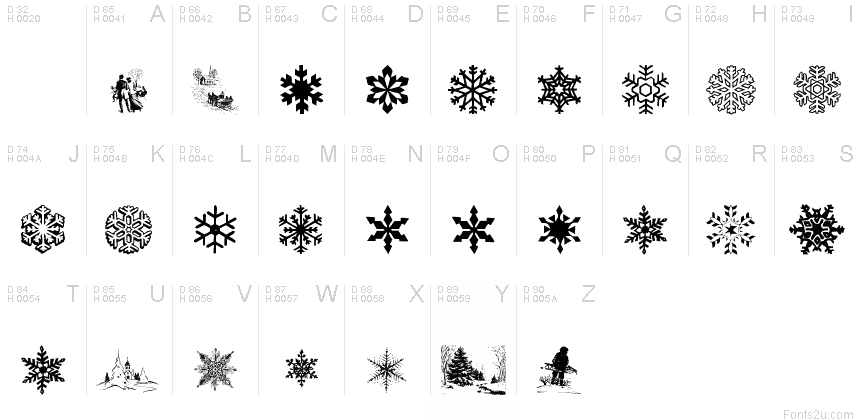
MarshMallow World
MarshMallow World by D. Herring is a free snowflake dingbat font built around crisp winter ornament. The snowflake uses sturdy branching arms, pointed tips, and small angular offshoots. Its silhouette is symmetrical and immediately recognizable.
Snow, ice, and cold-weather themes make this pictorial design useful for holiday cards, seasonal packaging, event posters, and children's activity sheets. The motif can replace ordinary lettering as a badge or printed decoration, giving winter products and festivities a consistent graphic identity.